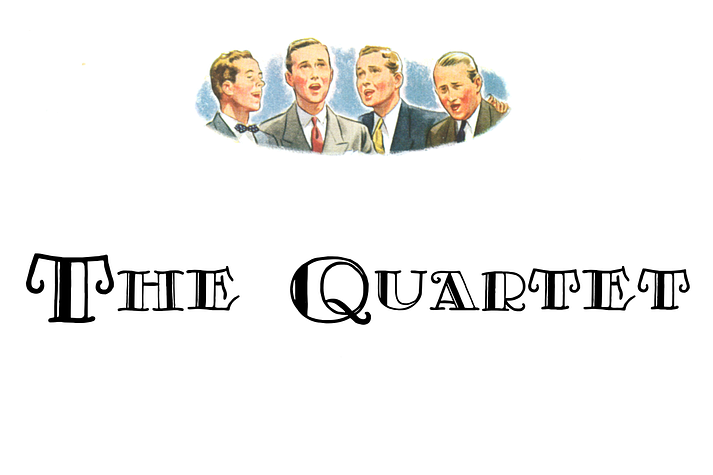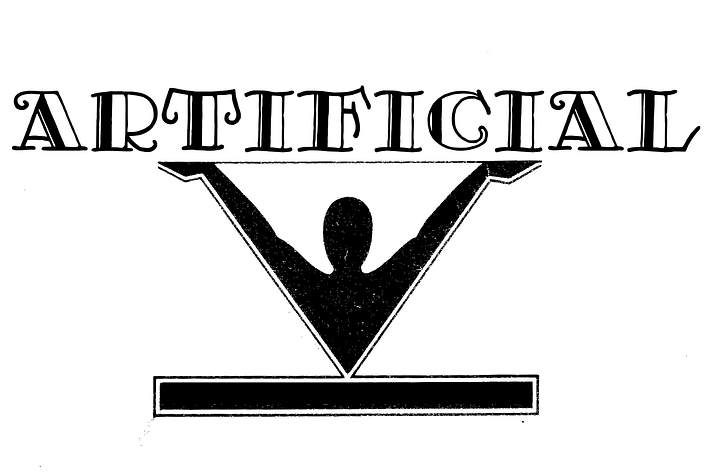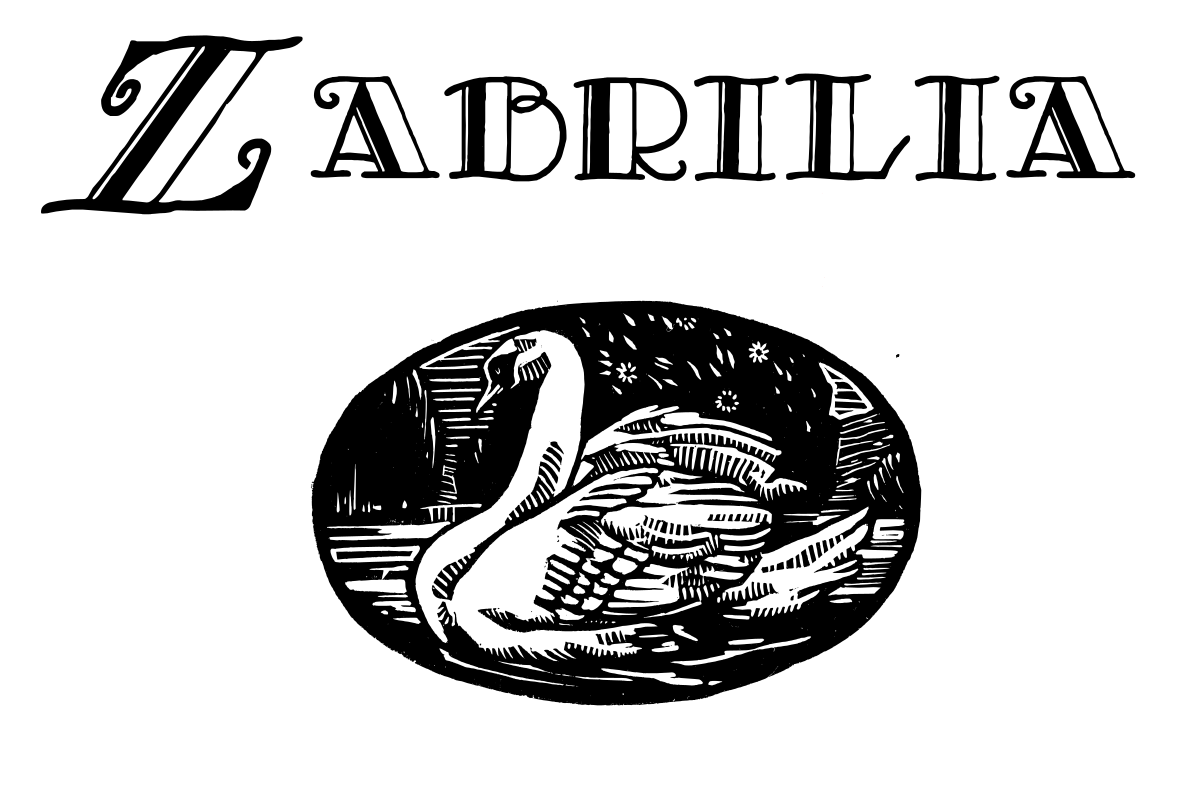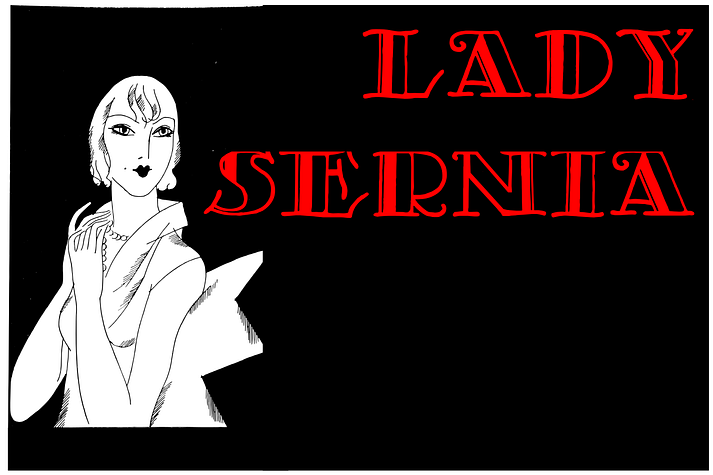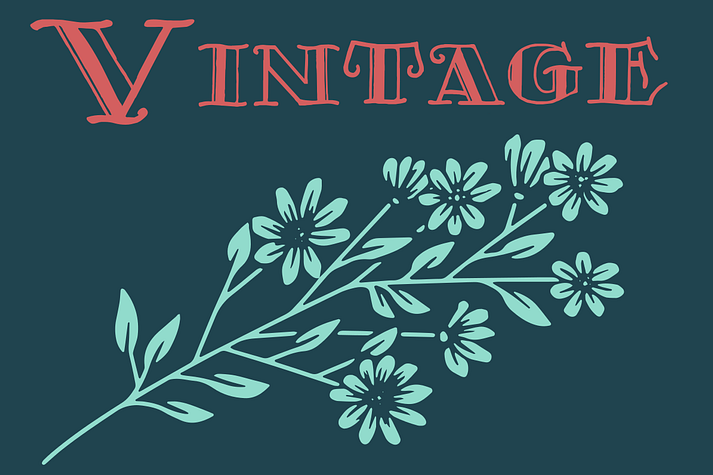
Zabrilia
Designed by Paulo W, Zabrilia is an art deco and slab serif font family published by Intellecta Design.
An art deco font based on brazilian Rio’s lettering old publish lettering style